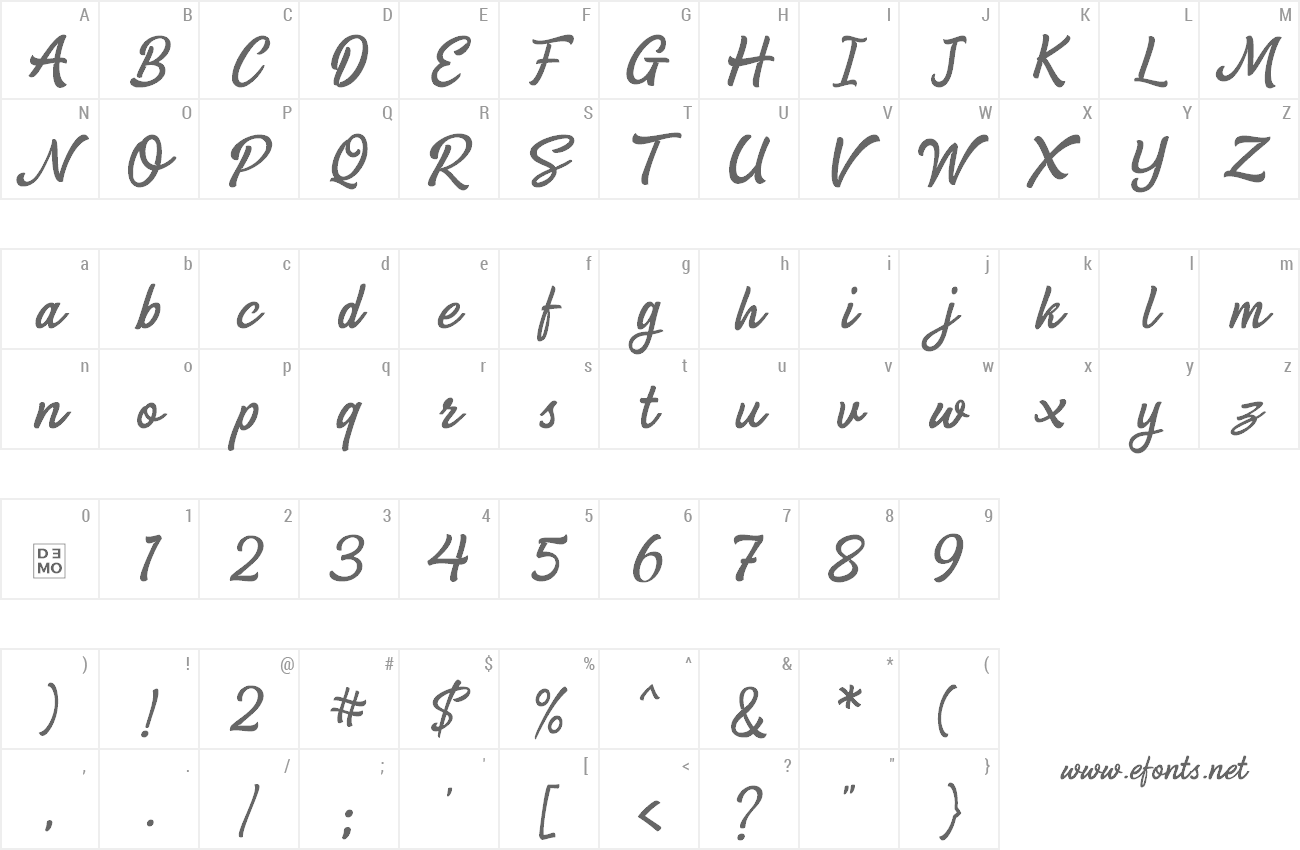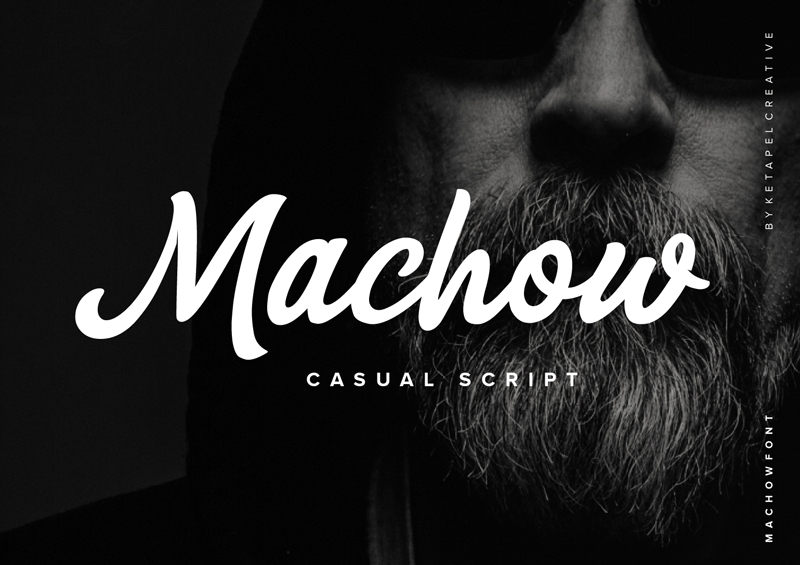
Machow is a flowing and cute handwritten font. It maintains its classy calligraphic influences while feeling contemporary and fresh. This versatility will appeal to a wide range of crafty ideas, from letterheads and titles, to stationery. Includes in uppercase, lowercase, standard numbers & punctuation, multilingual support. *This font is demo version free for personal use. Please visit https://www.creativefabrica.com/designer/ketapelcreative/ref/237095 to purchase commercial license and more other products. download & enjoy !! *Contact me : ketapelcreative@gmail.com Thanks for downloading this fonts. Best Regards |